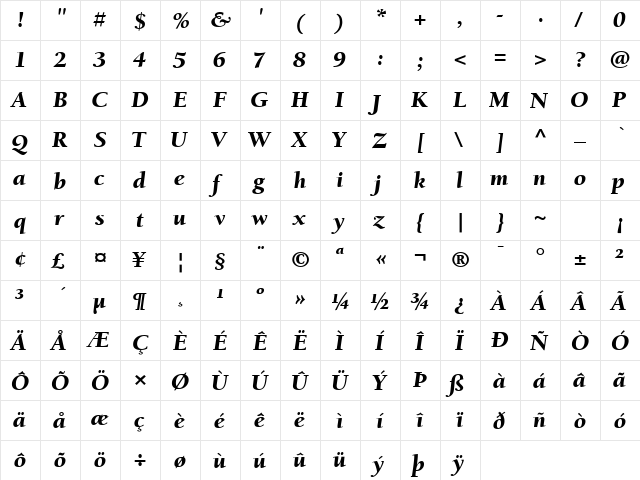
Berkeley Retrospective Black SSi Black Italic
Design Context for Berkeley Retrospective Black SSi Typeface
Berkeley Retrospective Black SSi has the warm character of retro typography — evoking diners, record sleeves, and the golden age of print advertising. The slanted form adds forward momentum and visual energy.
Ideal for diner signage, record shop branding, 70s/80s-themed projects, and heritage product labels.
Font Pairing: Combine Berkeley Retrospective Black SSi with a simple slab or neutral sans — period-accurate companions reinforce the vintage feel without competing for attention.
Pro Tip: Lean into Berkeley Retrospective Black SSi's period character by pairing it with aged paper textures, muted colour palettes, and vintage illustration styles.